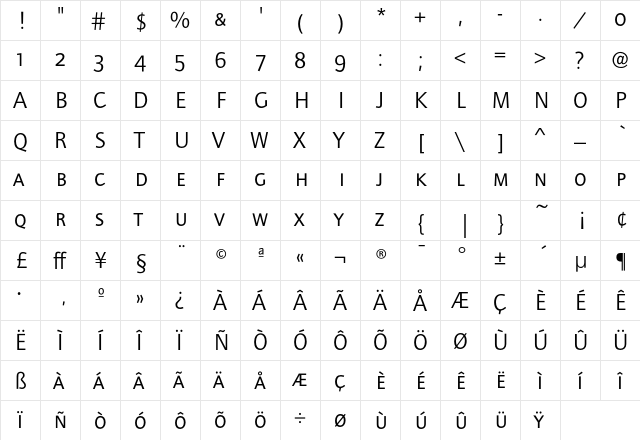
FoundryJournalSC-Book Regular
Design Context for FoundryJournalSC-Book Typeface
FoundryJournalSC-Book offers clean, dependable letterforms without strong stylistic allegiance, making it a practical choice for designers who need flexibility.
Pro Tip: Use FoundryJournalSC-Book in both headline and body roles to test its range before committing to a single application.